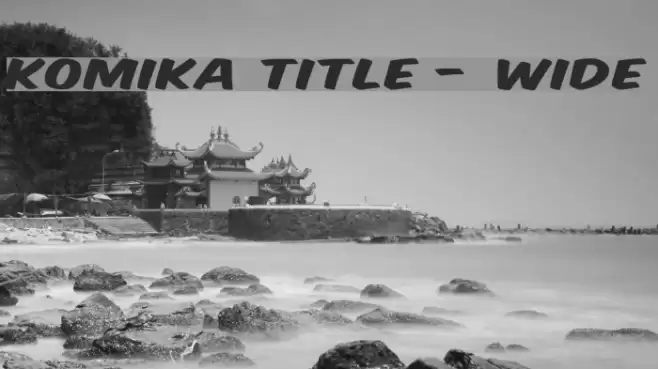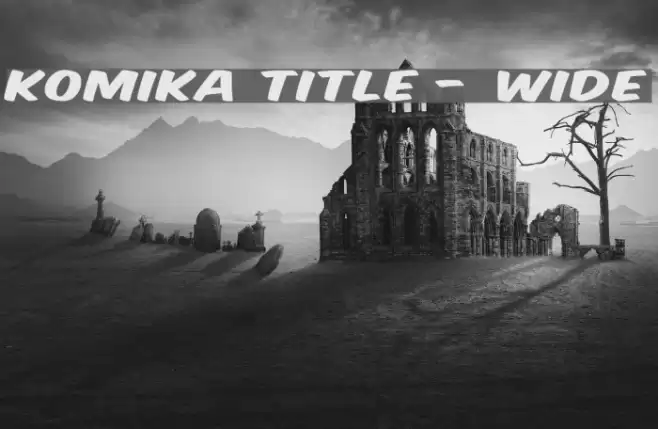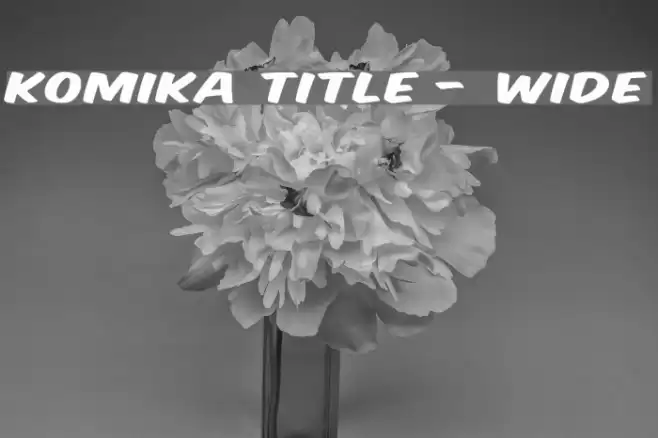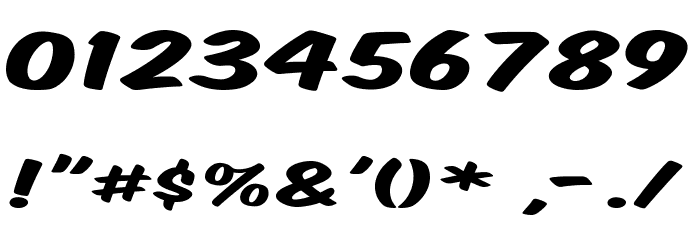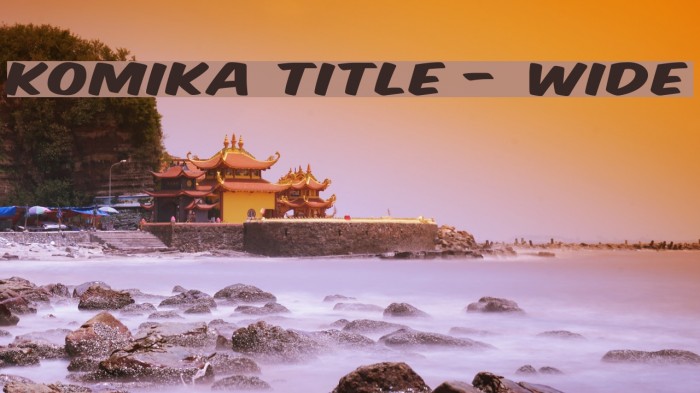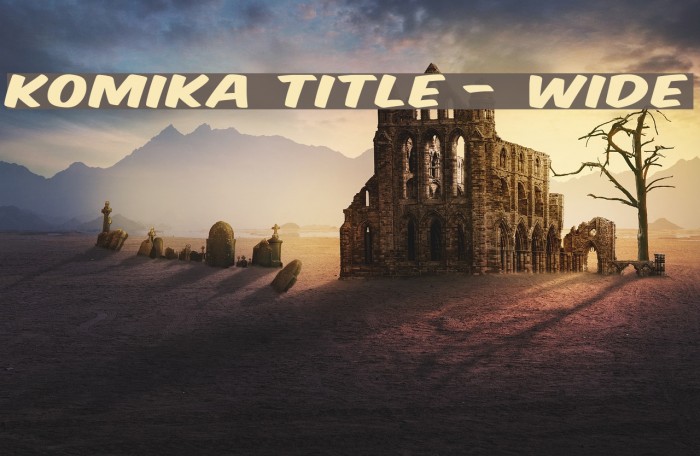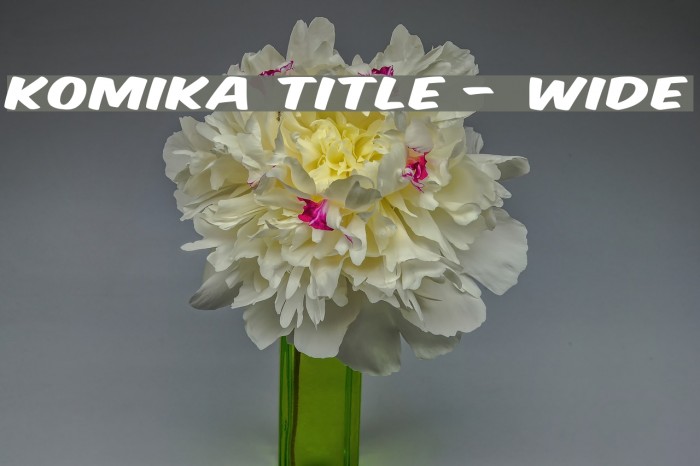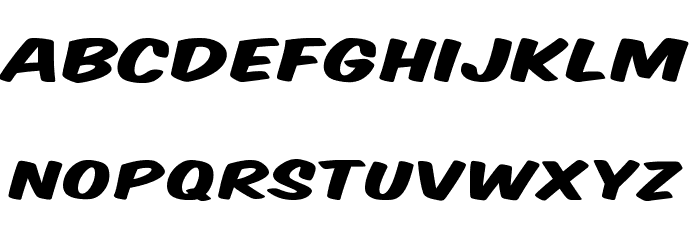
Komika Title - Wide
This font features a bold and playful style, characterized by its wide, rounded letters that convey a sense of fun and energy. The strokes are thick and consistent, providing a strong visual impact. The letters have a slight slant, adding a dynamic feel to the text. This font is highly legible, making it suitable for various display purposes. The numbers and special characters maintain the same bold and rounded style, ensuring consistency across all elements. Its unique appearance makes it ideal for projects that require a lively and engaging typeface.
A bold, playful font with wide, rounded letters and a dynamic slant.
- Proposed Projects: Ideal for comic books, children's books, posters, and playful branding.
- Width: Expanded
- Overall Style: Playful, Energetic
- Use Case: Headlines, Logos, Posters